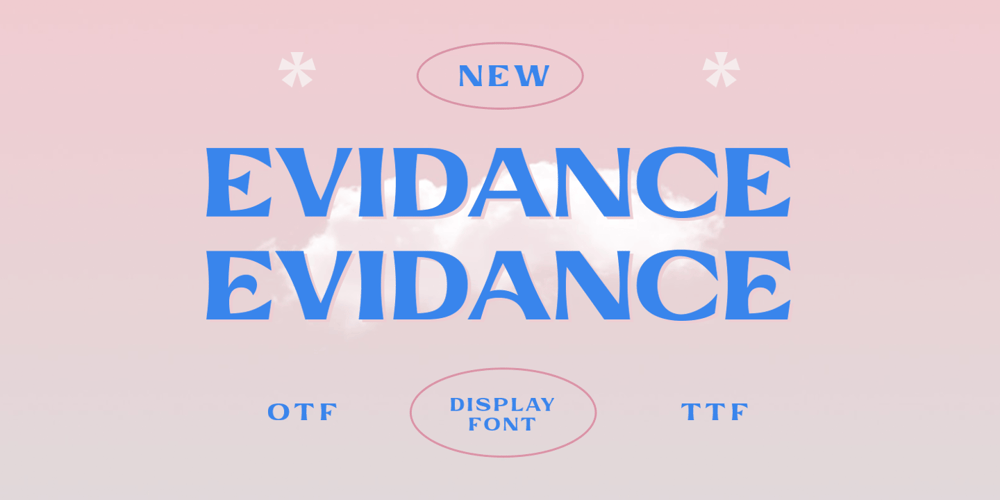
Evidance Font Family was designed by Hendry Juanda and published by Letterhend. Evidance contains 1 styles and family package options. Evidance is a sophisticated display typeface with modern look and feel. Perfectly to be applied to the other various formal forms such as invitations, labels, logos, magazines, books, greeting / wedding cards, packaging, fashion, make up, stationery, novels, labels or any type of advertising purpose.Features :uppercase & lowercase (alternate)numbers and punctuationmultilingualalternates & ligaturesPUA encodedWe highly recommend using a program that supports OpenType features and Glyphs panels like many of Adobe apps and Corel Draw, so you can see and access all Glyph variations. How to access opentype feature : letterhend.com/tutorials/using-opentype-feature-in-any-software/Email us to letterhend@gmail.com if you need something! Happy Designing!